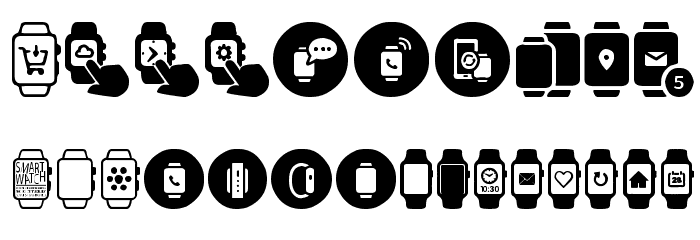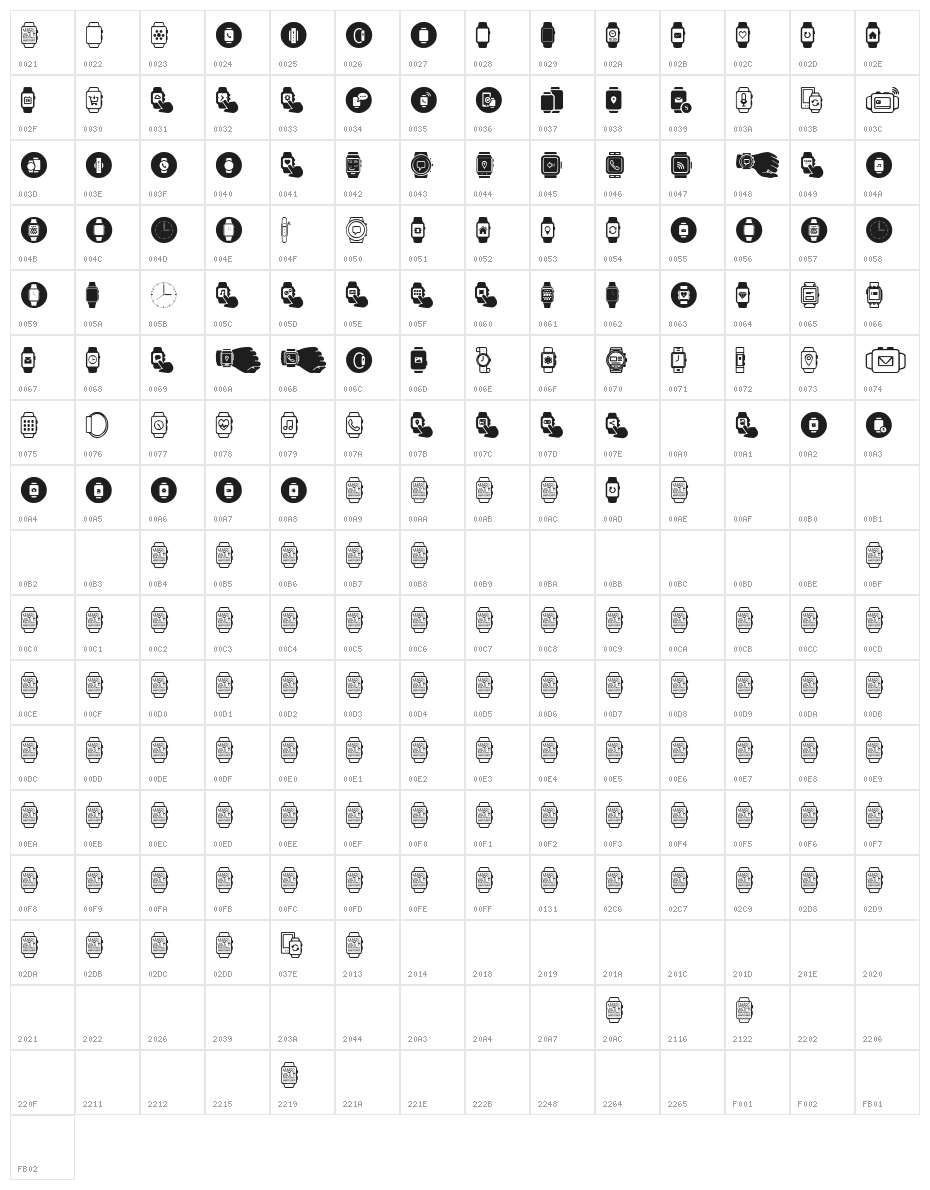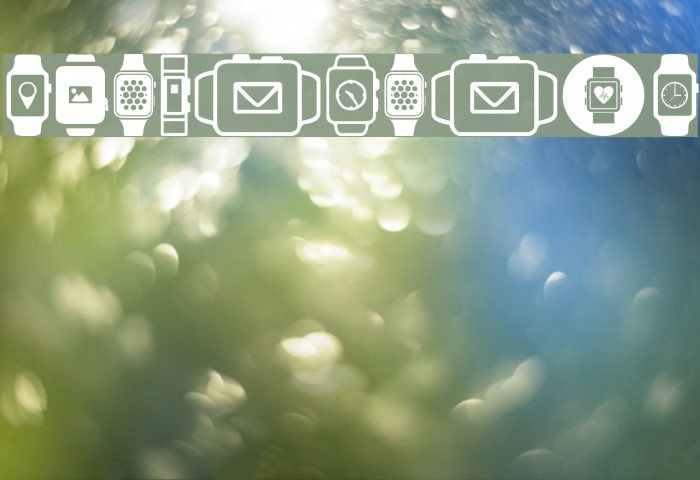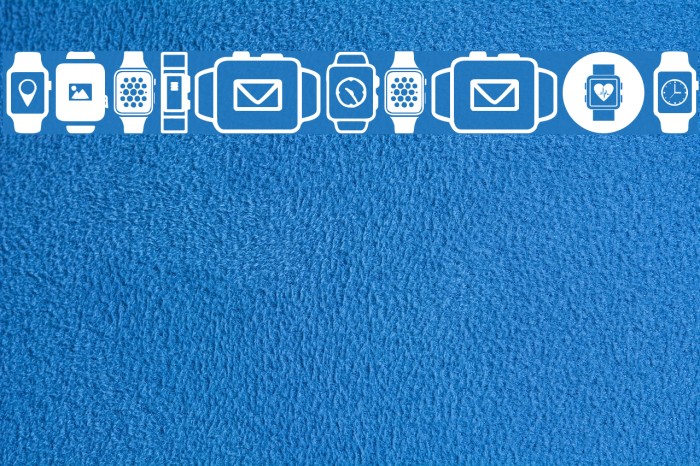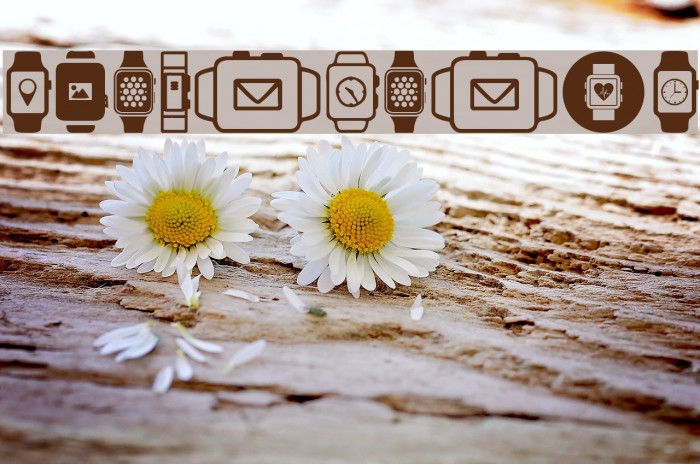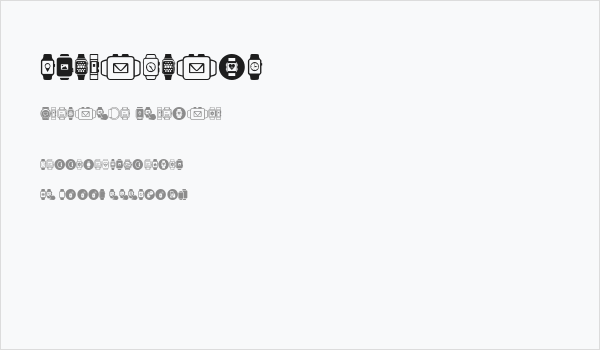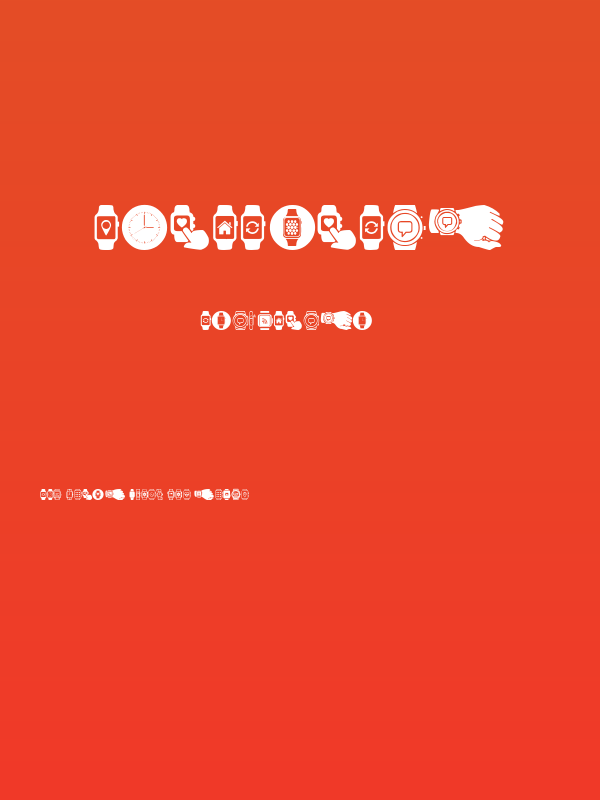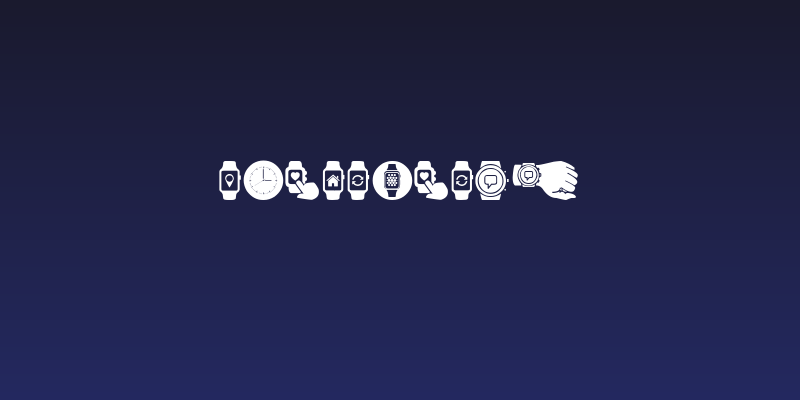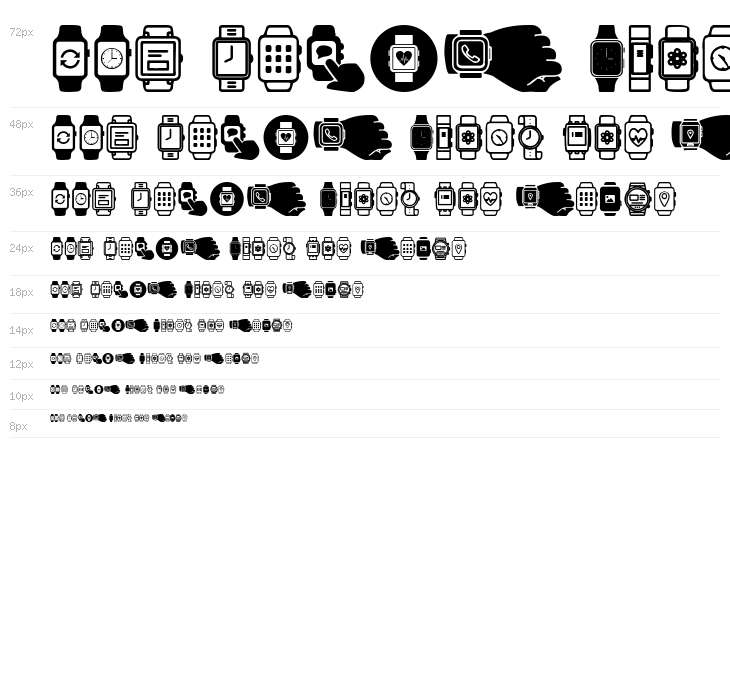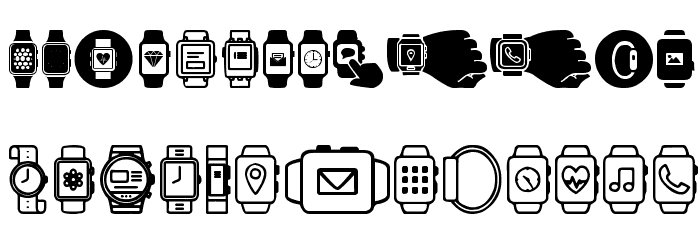
Smartwatch Font
Smartwatch Description
A collection of bold, high-contrast smartwatch-themed pictograms with a modern, geometric style. The icons feature both filled and outlined designs, with consistent line weights and rounded corners, representing various smartwatch functions and interfaces.
| Use Case | Icons, UI elements, infographics, branding |
| Proposed Projects | App interfaces, tech presentations, wearable device branding, infographics, user manuals. |